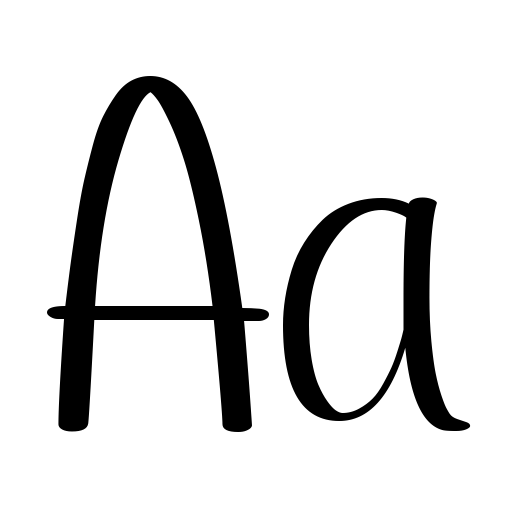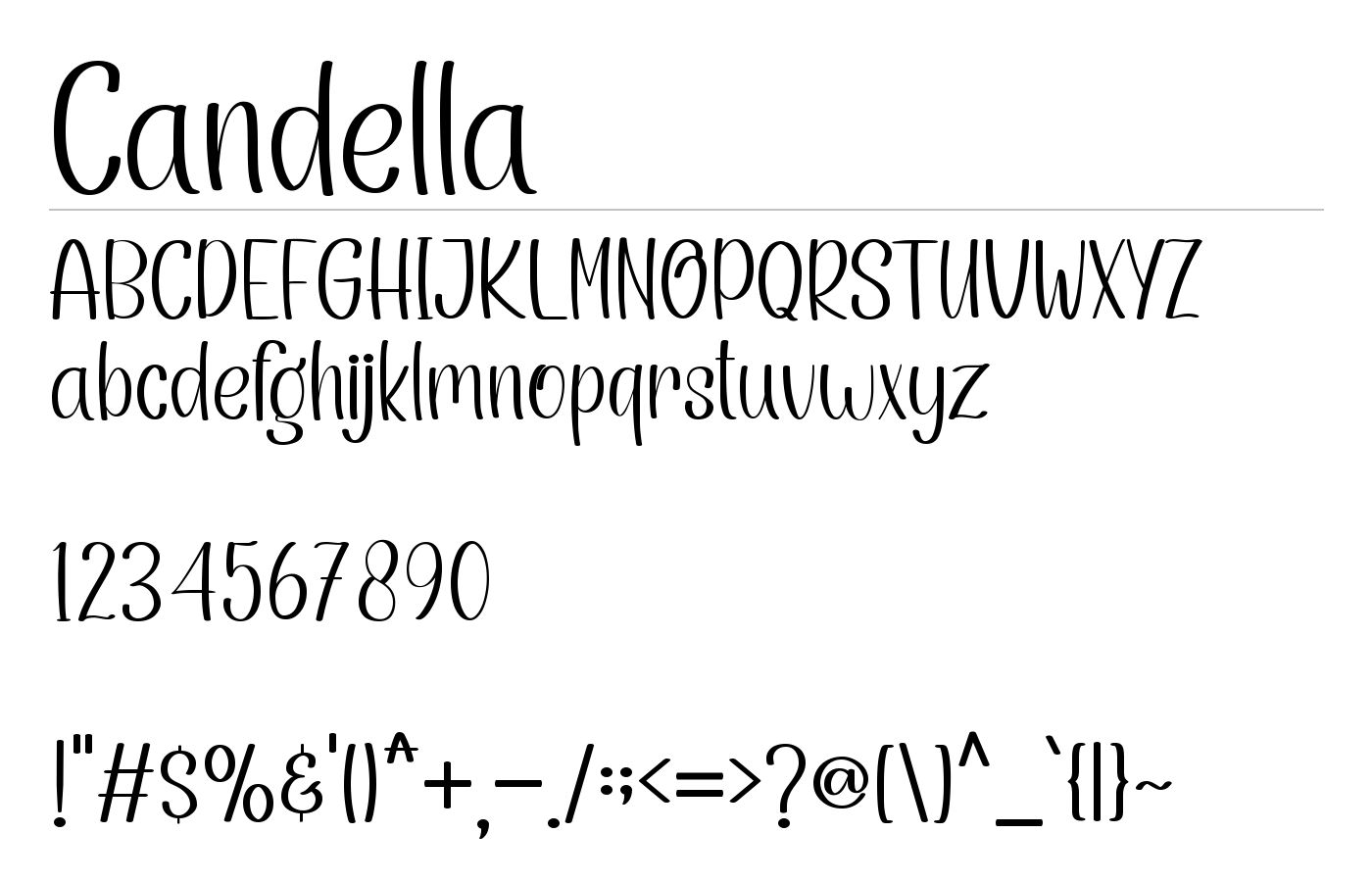
Candella is a slender, playful handwritten font with a casual, friendly vibe. Its tall, narrow letterforms and moderate contrast create an approachable yet elegant look, making it ideal for creative projects, invitations, and branding that seeks a personal touch. This font works well in both headlines and short texts where a warm, distinctive style is desired.
Candella Font
About Candella Font